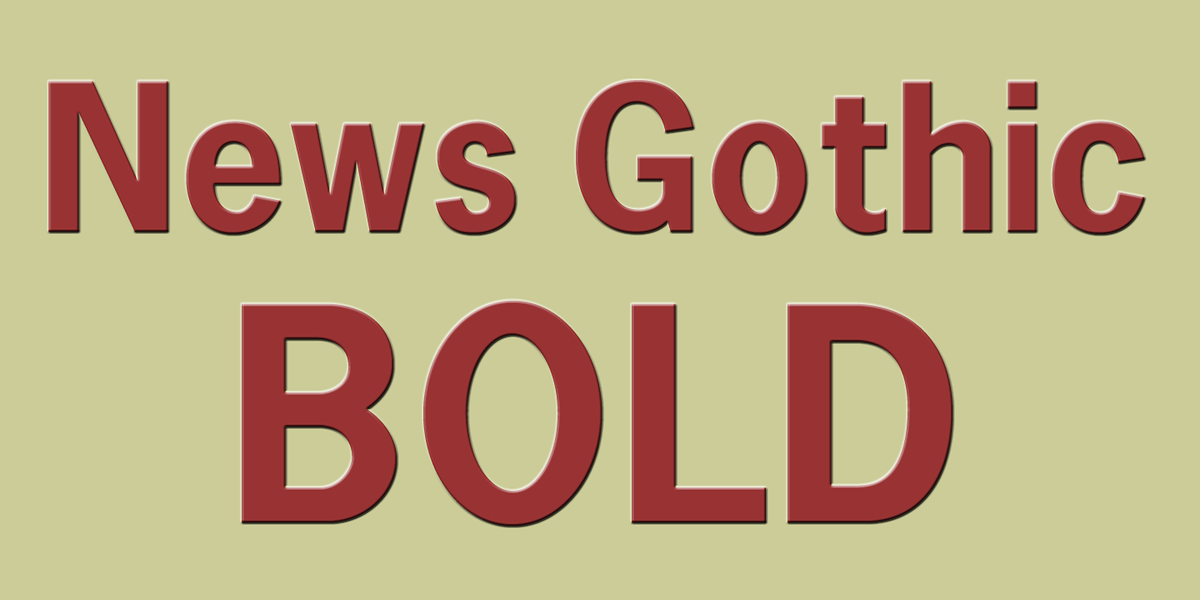
Deliver clarity and impact with News Gothic Bold Font Free Download — a strong, no-nonsense sans serif typeface that’s perfect for headlines, editorial layouts, branding, signage, and professional presentations. Originally designed for newsprint, this bold version of the classic News Gothic offers clean lines, excellent legibility, and a timeless modernist feel.
Its bold weight adds authority without overwhelming your design, making it ideal for everything from magazine titles to corporate identity systems. The font includes uppercase and lowercase letters, numbers, and punctuation—great for testing structured, high-contrast layouts.